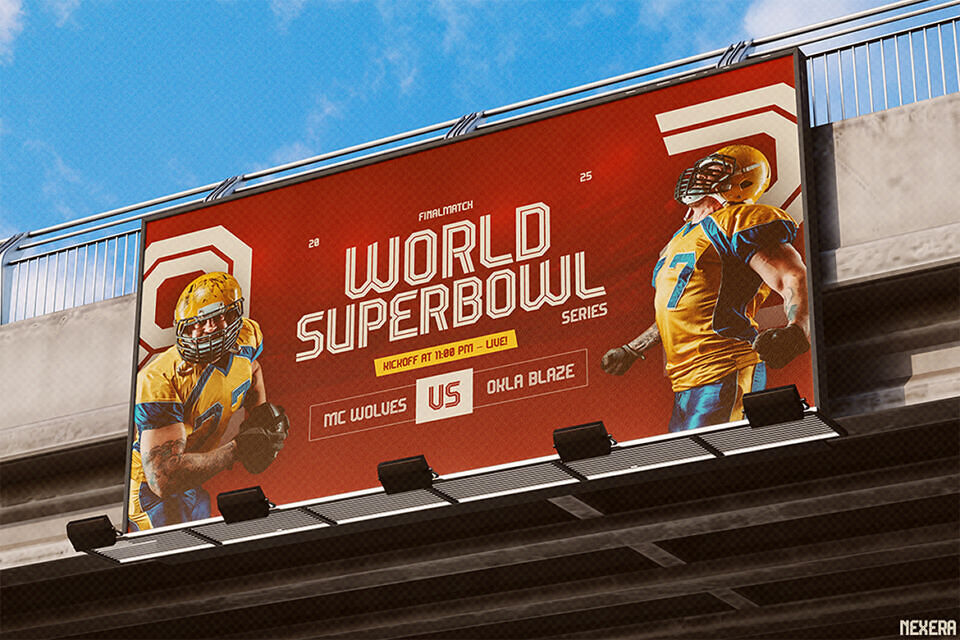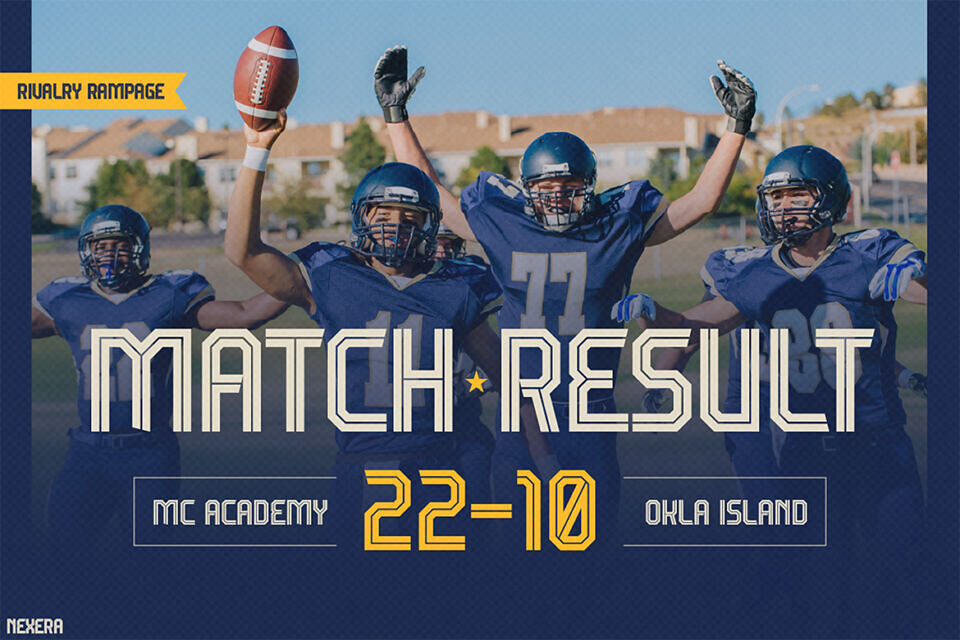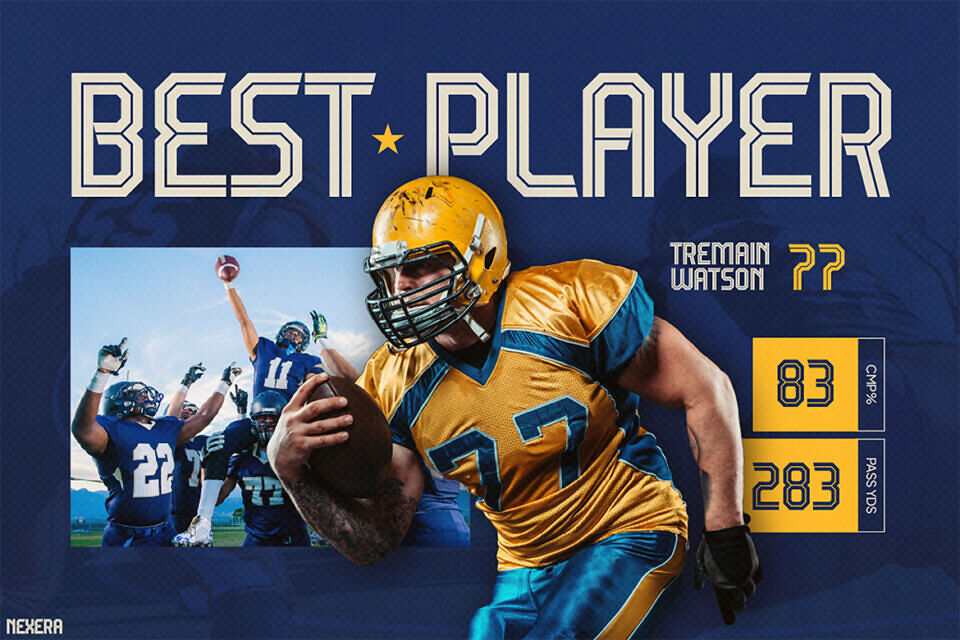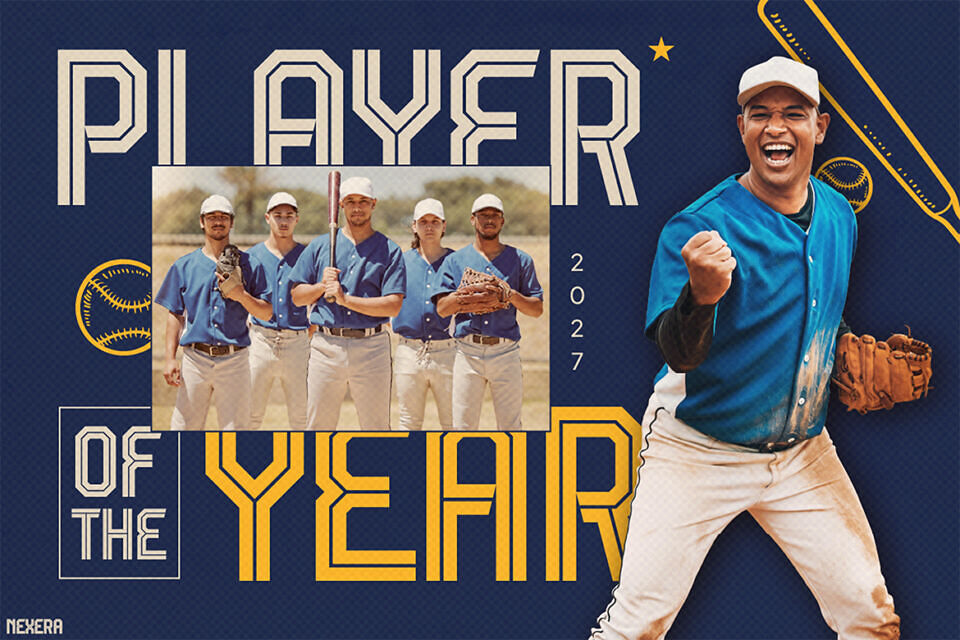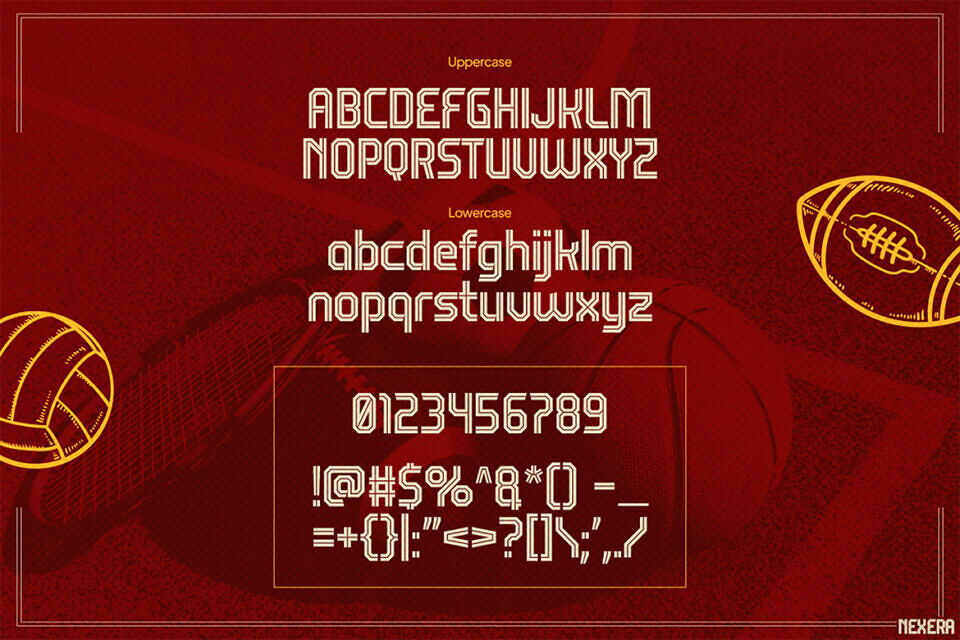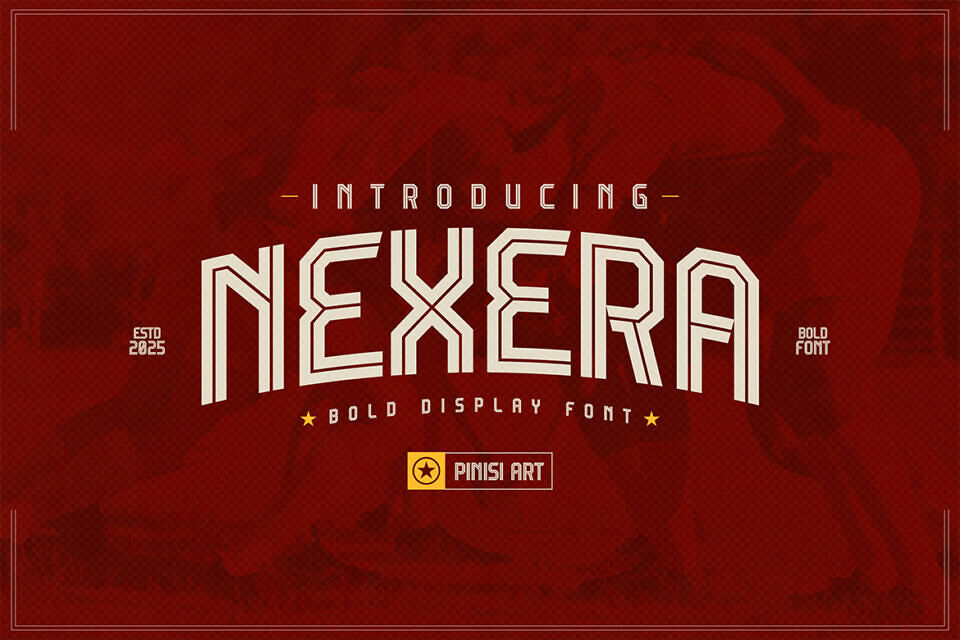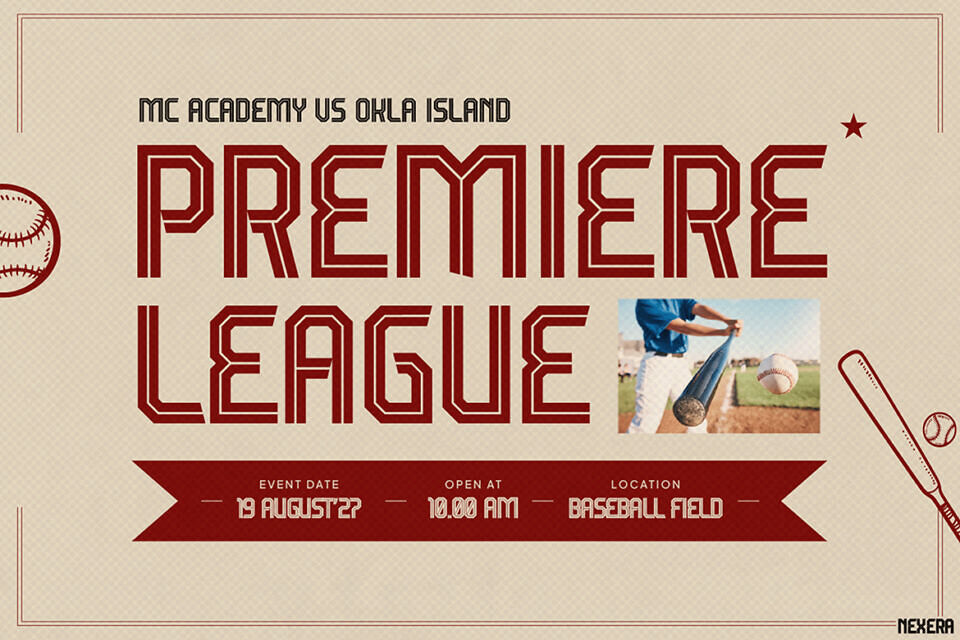
Nexera Font
Sport Fonts NEXERA is a bold and modern typeface created to capture the true spirit of competition. Its geometric shapes, sharp edges, and dynamic letterforms instantly grab attention. Moreover, the font carries a sense of strength, energy, and determination. It reflects the thrill and excitement of game day.
With versatile uppercase and lowercase options, Sport Fonts NEXERA works well for headlines and supporting text. Therefore, the design feels both powerful and stylish. In addition, it balances athletic aesthetics with professional readability. Whether used on posters, scoreboards, or digital graphics, this font turns words into bold statements that demand attention.